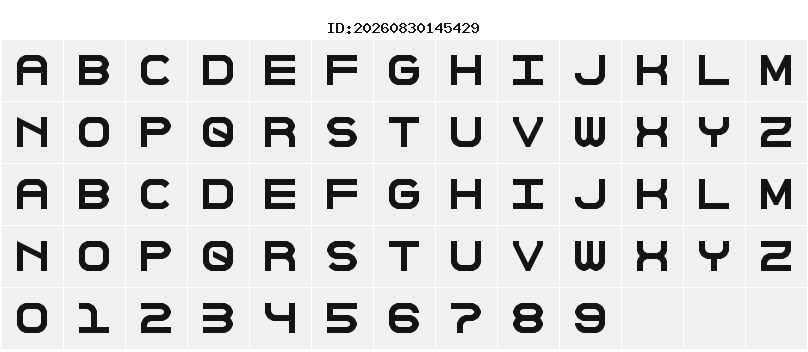
The Keepsake Days Preview
• Font Name: The Keepsake Days
• Full Font Name: The Keepsake Days Regular
• Designer: Andrew McCluskey
• Description: ‚ÄúThe Keepsake Days‚Äù was built with FontStruct
About The Keepsake Days.ttf
The Keepsake Days.ttf is a modern, elegant sans-serif font designed for ultimate readability and visual harmony. Perfect for branding, headlines, web design, and print materials.